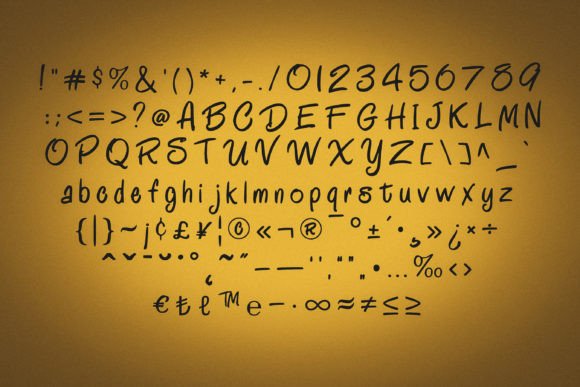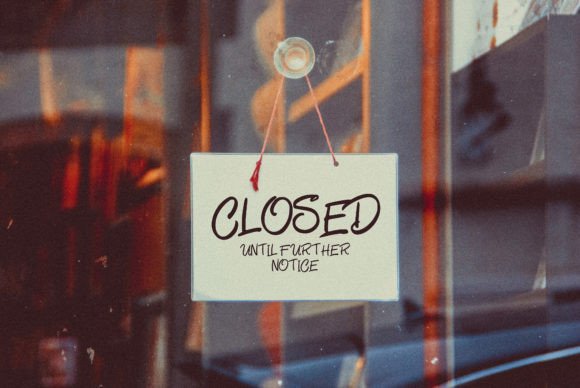
Dangerous Font: The Fun and Friendly Handwritten Font You’ll Love
Are you tired of using the same old fonts for your crafts, digital designs, and presentations? Look no further! Introducing the Dangerous font, a fun and friendly handwritten font that’s sure to become your new go-to font for any occasion. In this article, we’ll dive into the world of the Dangerous font, exploring its features, uses, and benefits for designers and crafters alike.
What is the Dangerous Font?
The Dangerous font is a beautiful, handwritten font that’s perfect for adding a personal touch to your designs. With its unique and quirky style, this font is sure to stand out from the crowd. Whether you’re creating crafts, digital designs, presentations, or greeting cards, the Dangerous font is the perfect choice.
Features of the Dangerous Font
So, what makes the Dangerous font so special? Here are just a few of its key features:
- Handwritten style: The Dangerous font has a beautiful, handwritten style that’s perfect for adding a personal touch to your designs.
- Unique and quirky: This font has a unique and quirky style that’s sure to stand out from the crowd.
- Versatile: The Dangerous font is perfect for a wide range of uses, from crafts and digital designs to presentations and greeting cards.
- Easy to read: Despite its handwritten style, the Dangerous font is easy to read, making it perfect for use in a variety of contexts.
Uses for the Dangerous Font
So, what can you use the Dangerous font for? The possibilities are endless! Here are just a few ideas to get you started:
- Crafts: The Dangerous font is perfect for use in crafts, such as scrapbooking, card making, and other paper crafts.
- Digital design: This font is also great for use in digital design, such as creating social media graphics, blog posts, and other digital content.
- Presentations: The Dangerous font is a great choice for presentations, adding a personal touch to your slides and making them more engaging.
- Greeting cards: This font is perfect for creating greeting cards, adding a personal touch to your messages.
Benefits of Using the Dangerous Font
So, why should you use the Dangerous font? Here are just a few benefits:
- Adds a personal touch: The Dangerous font adds a personal touch to your designs, making them more engaging and unique.
- Easy to use: This font is easy to use, even for those with limited design experience.
- Versatile: The Dangerous font is perfect for a wide range of uses, making it a great addition to your font library.
- Fun and friendly: This font has a fun and friendly style that’s perfect for creating designs that are approachable and engaging.
Tips for Using the Dangerous Font
Here are a few tips for using the Dangerous font:
- Use it sparingly: While the Dangerous font is fun and friendly, it can be overwhelming if used too much. Use it sparingly to add a personal touch to your designs.
- Pair it with other fonts: The Dangerous font pairs well with other fonts, such as sans serif fonts. Experiment with different pairings to find the one that works best for your design.
- Experiment with colors: The Dangerous font looks great in a variety of colors. Experiment with different colors to find the one that works best for your design.
In conclusion, the Dangerous font is a fun and friendly handwritten font that’s perfect for designers and crafters alike. With its unique and quirky style, this font is sure to add a personal touch to your designs. Whether you’re creating crafts, digital designs, presentations, or greeting cards, the Dangerous font is the perfect choice. So why not give it a try? Download the Dangerous font today and see the difference it can make in your designs!